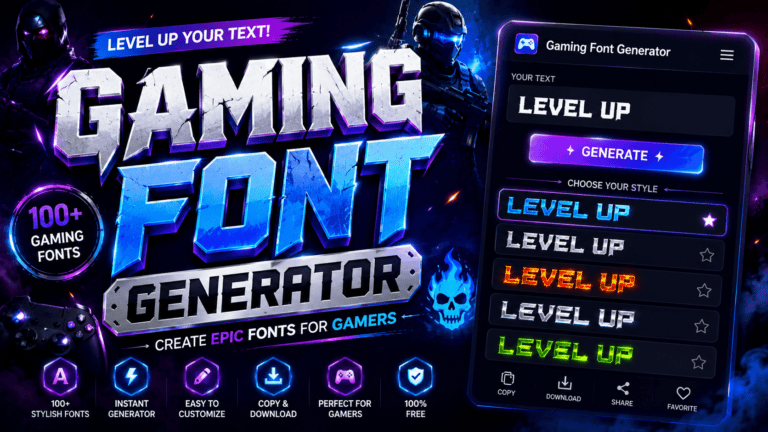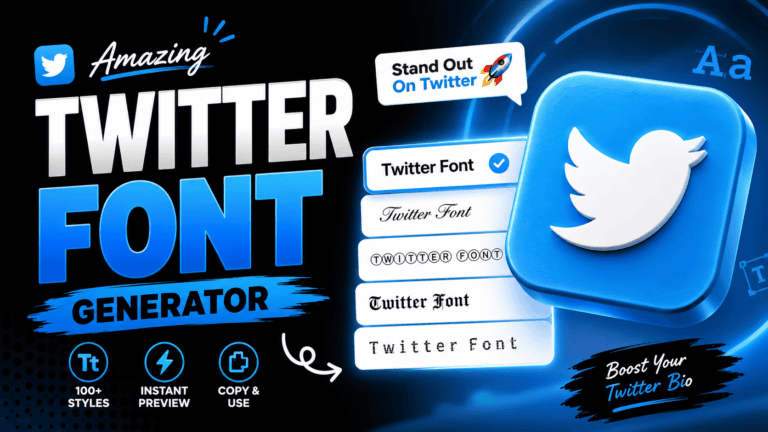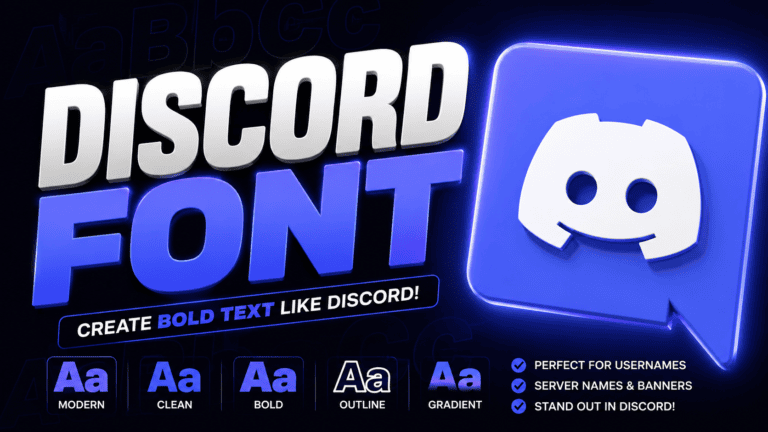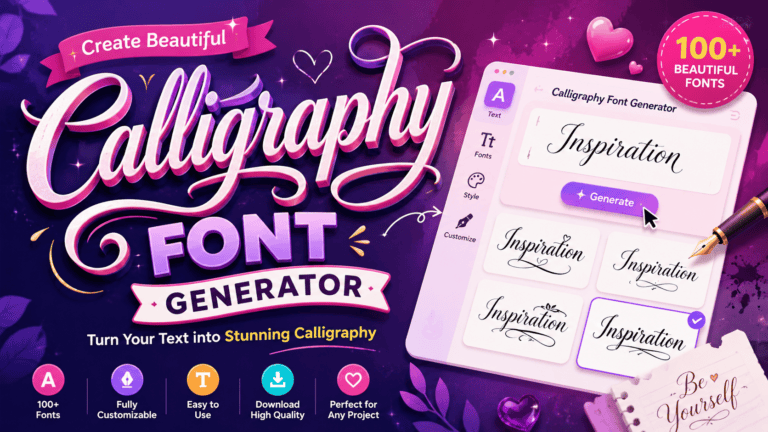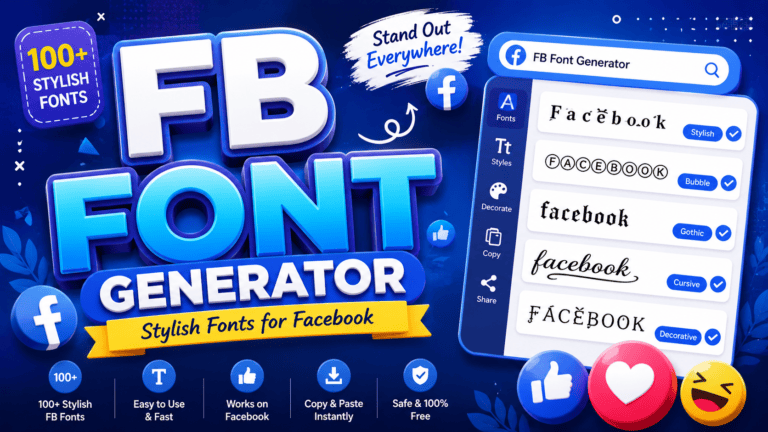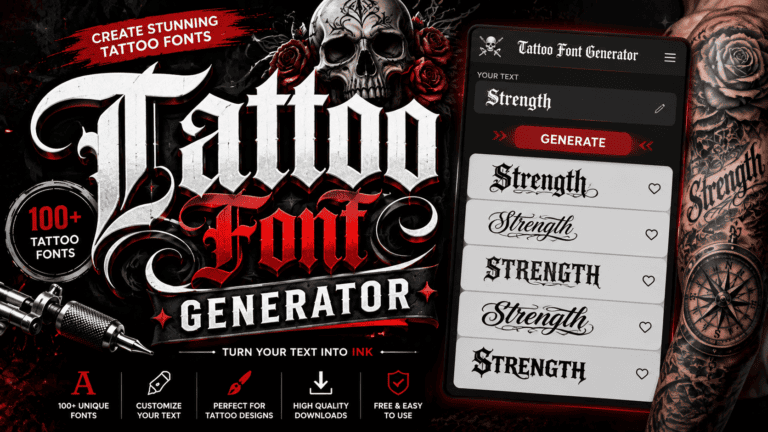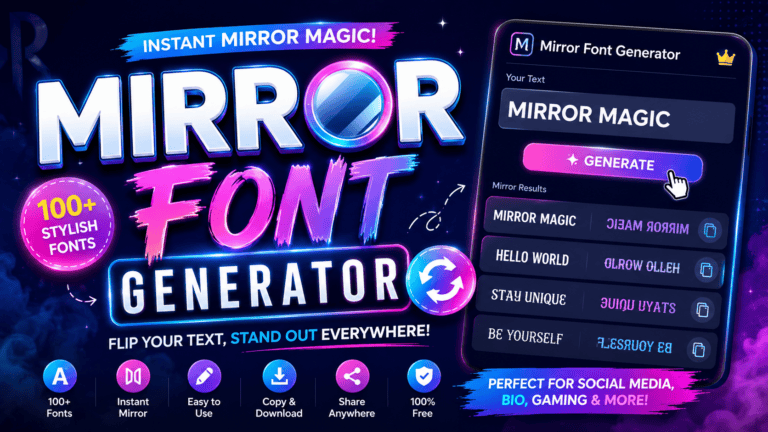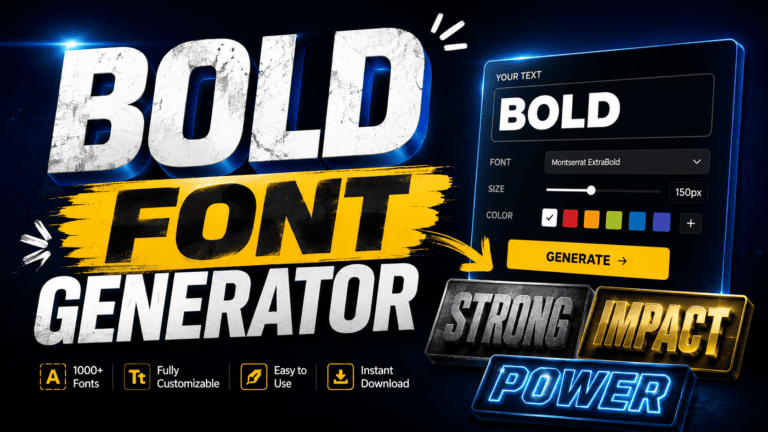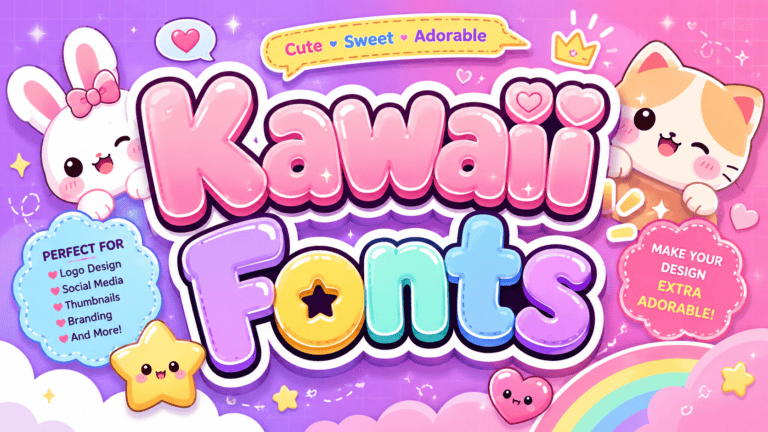
Font Generater – Change Your Boring Text To Cursive
Font design is now fully accessible. An online tool taking normal text and outputting stylish, decorative results using Unicode characters — from Gothic to cursive — gives everyday users across websites and social media real creative power.
Unlike installable font files, a copy-and-paste platform needs zero software. Crafting Instagram bios, Discord nicknames, or TikTok captions simply means picking from fancy styles — bold, small caps, glitch text, cool symbols, emojis — using any apps.
What Is a Font Generator?
A font generator is a free web tool that converts plain text into eye-catching fancy font combinations. From calligraphy to cursive style, it serves social media bios, logos, and messaging without any time-consuming manual design.
Unlike a fonts library, this text generator runs in seconds via any browser, offering 200+ different fonts instantly. Simply type into a text box, copy styled characters, and paste to Facebook, Instagram, Twitter, or chats.
How to Use the Font Generator
Type your text into the text box, then scroll through 20 unique styles on screen. The font gen tool reveals generated text live. Click any option and copy it directly to your clipboard within seconds.
Font Styles Available
Font styles within any font generator range beyond bold font and italic, covering calligraphy, cursive style, and glitchy variations. These unique fonts transform boring text into eye-catching content that strengthens your social media bio instantly.
From ASCII art to Bubble fonts, each font style carries its own vibe and mood. Whether crafting headlines, bios, or gaming profiles, the right typefaces help grab attention across platforms like TikTok, Discord, and Instagram.
Where Can You Use It
From social media to gaming platforms like Steam, Minecraft, and Agario, font generators serve countless environments. Whether crafting a gamer tag, designing Instagram story headers, or writing captions for Twitter/X, styled text fits every corner.
Logos, brochures, posters, and ads are just some outputs this tool enhances. The education sector, Etsy sellers, Creative Market shops, and online store owners consistently leverage styled text for school posters, documents, and digital goods.
What Is Unicode
Most people encounter Unicode without realizing it. Every time you use electronic devices to send messages, the unicode standard governs how characters appear — from letters of the Latin alphabet to special characters and math symbols.